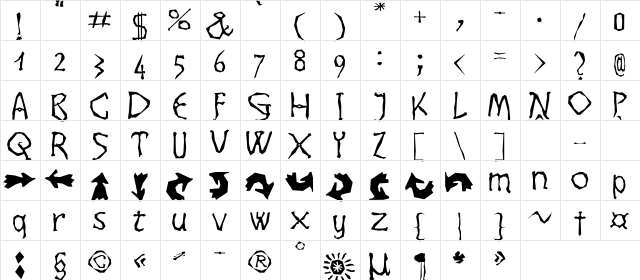
DikovinaBildchen Regular Font Preview
DikovinaBildchen Regular
Design Context for DikovinaBildchen Typeface
DikovinaBildchen is a composed and adaptable typeface that performs quietly and consistently across a wide range of design contexts.